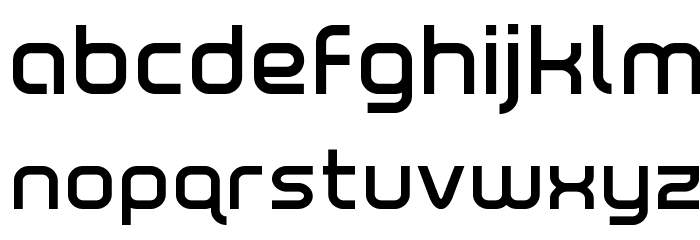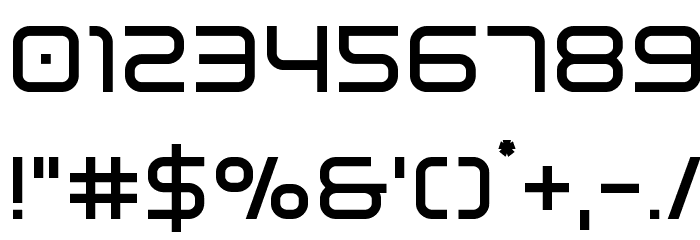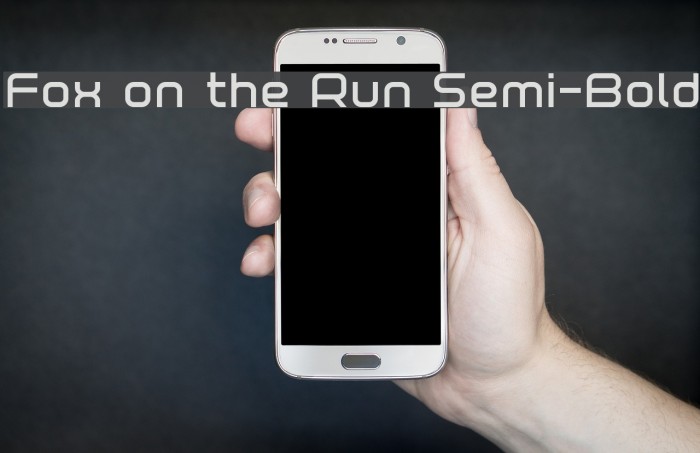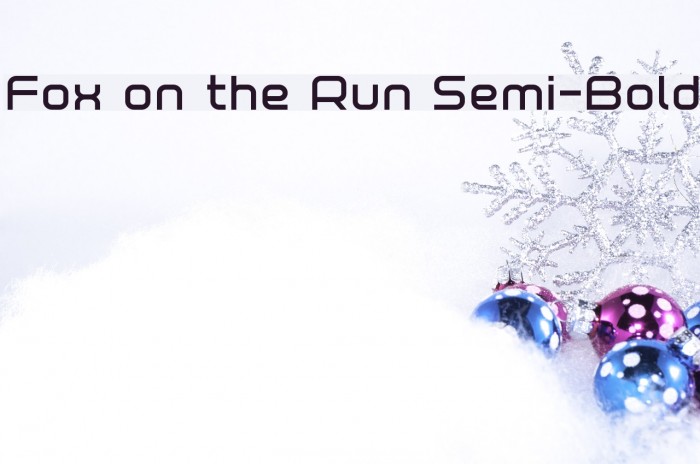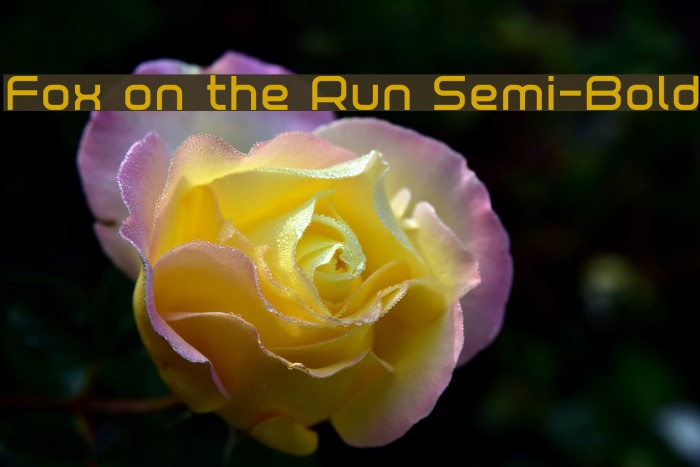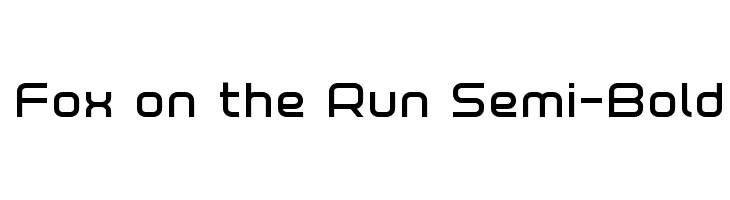
Fox on the Run Semi-Bold Font
This font features a modern, geometric style with clean, rounded edges and a semi-bold weight. The characters are evenly spaced, providing a balanced and harmonious appearance. The uppercase and lowercase letters maintain a consistent design, with a focus on simplicity and readability. The numerals and special characters complement the alphabet with their uniform structure and smooth curves. This font is versatile, suitable for both digital and print media, and can be used to convey a contemporary and professional look.
A modern, geometric font with clean, rounded edges and semi-bold weight.
- Proposed Projects: Ideal for branding, web design, advertising, and editorial layouts.
- Use Case: Headlines, Logos, Digital content